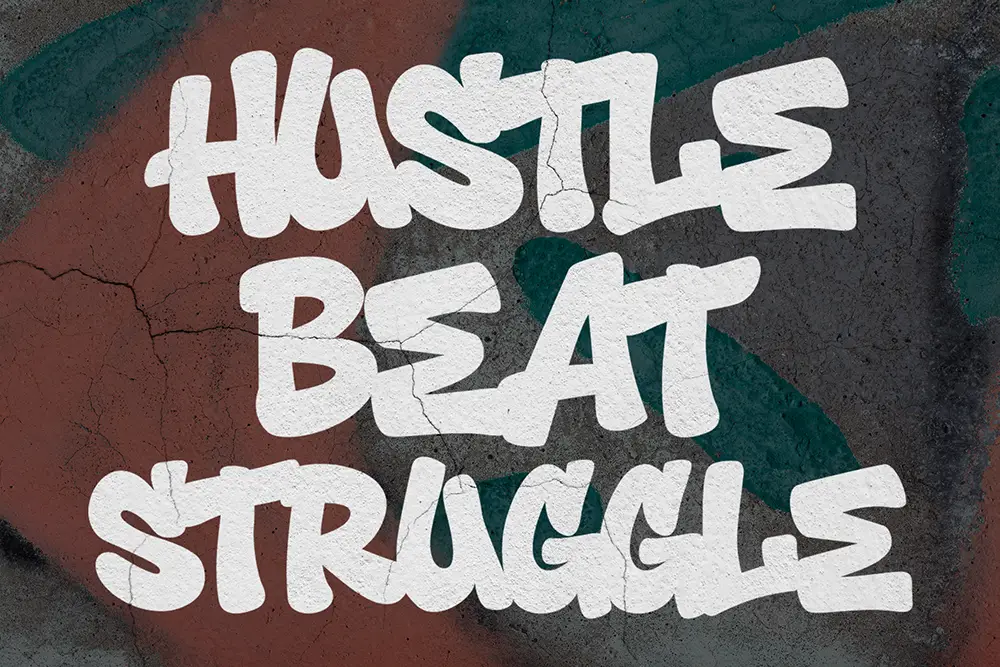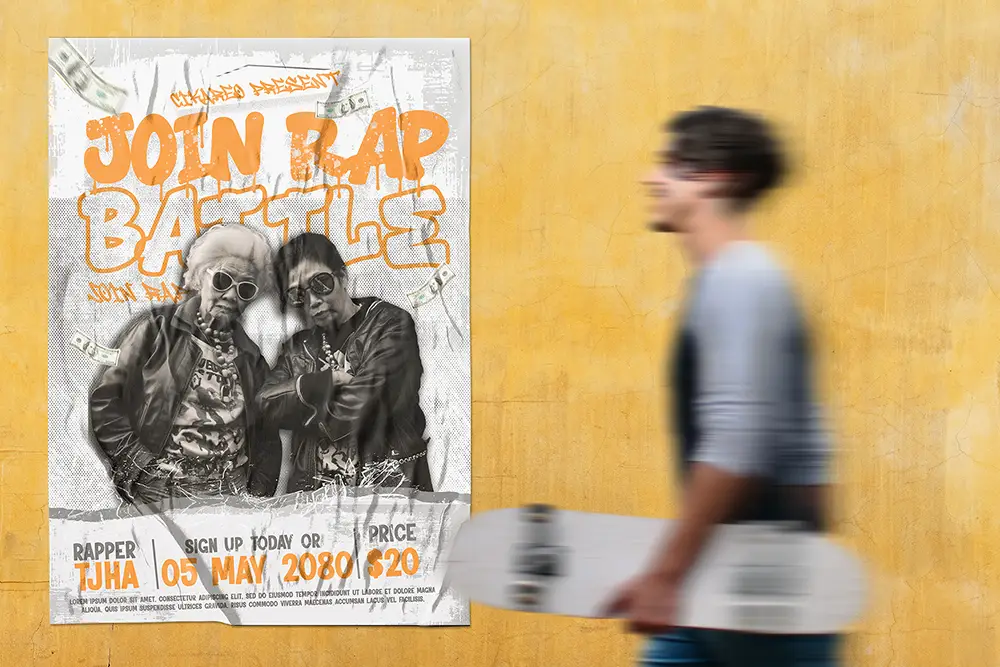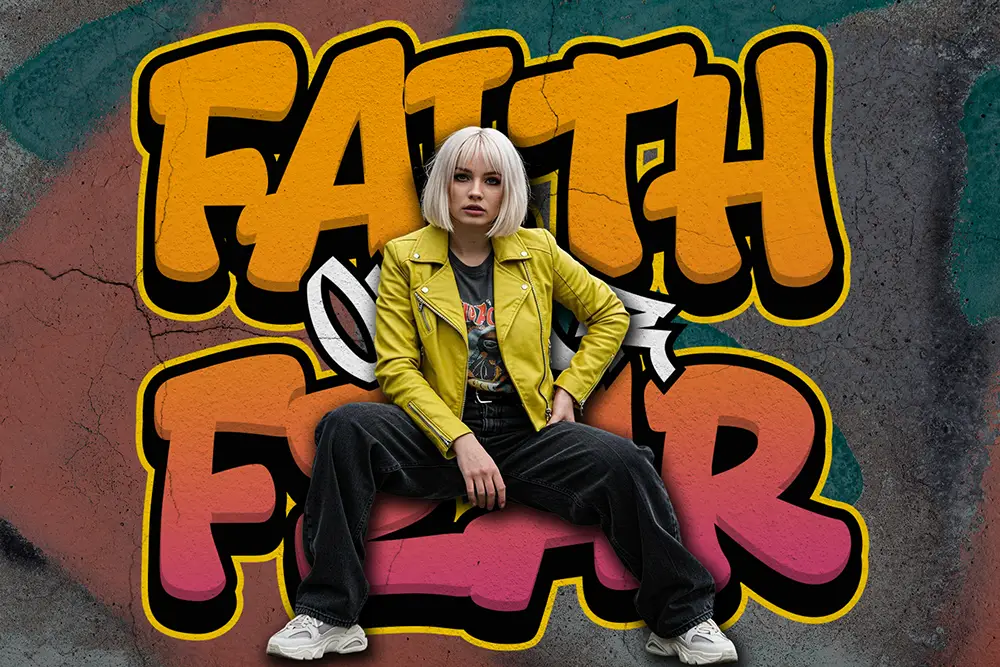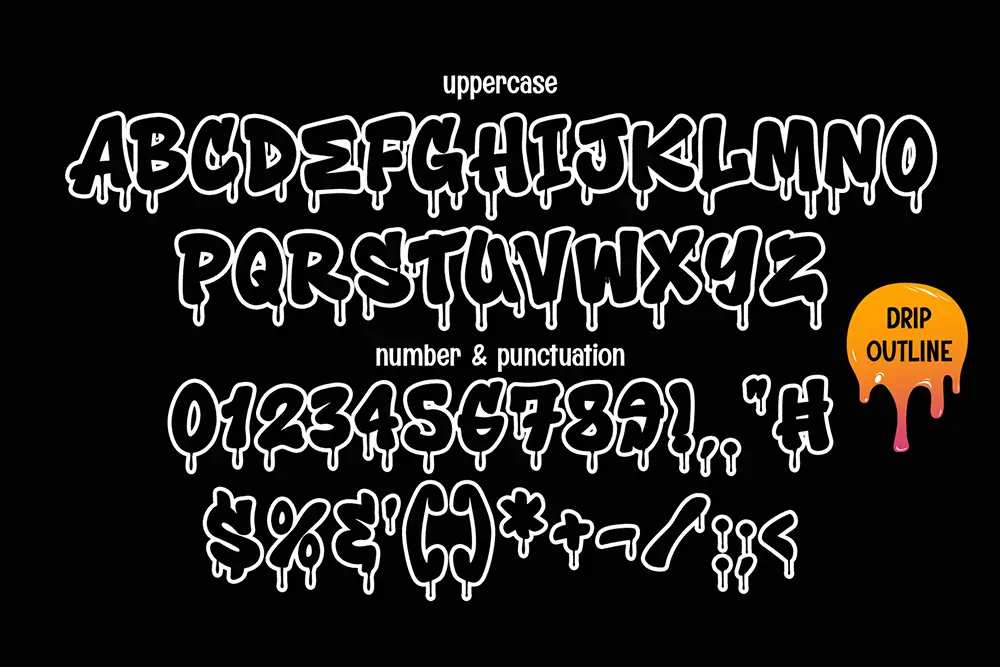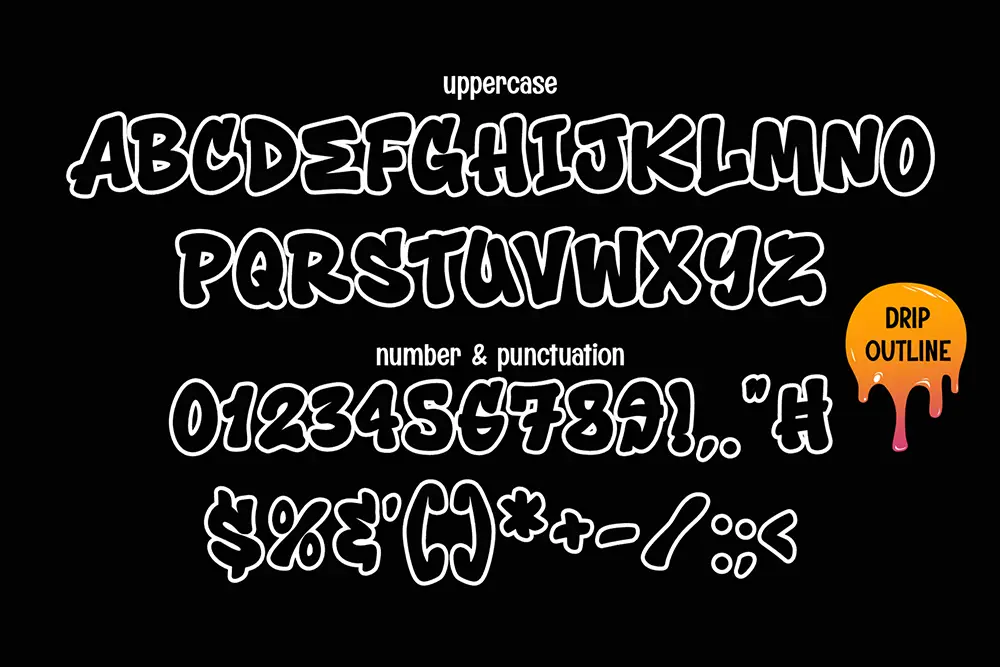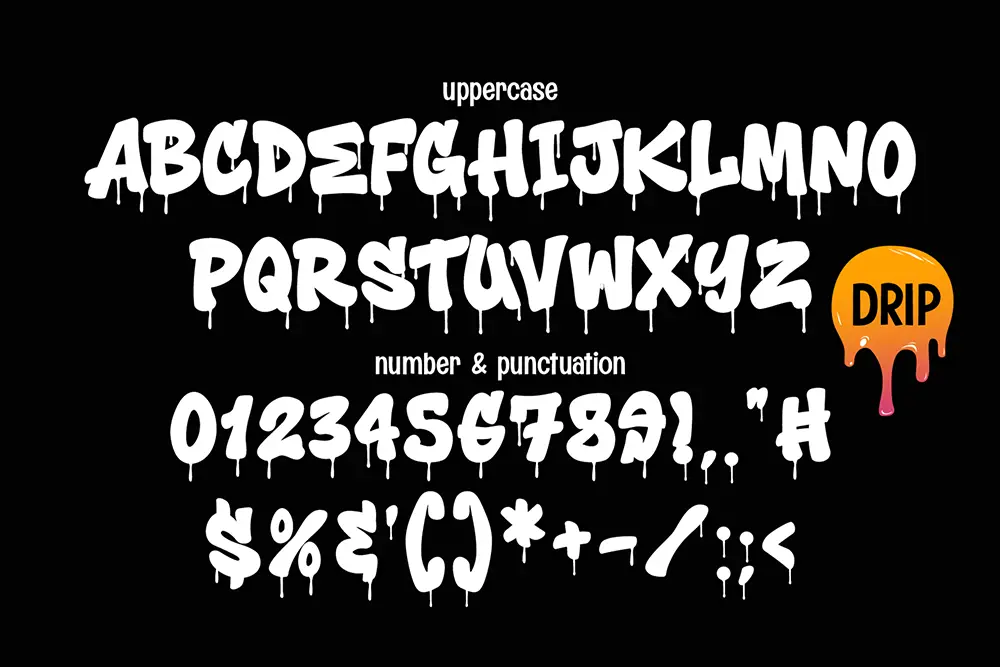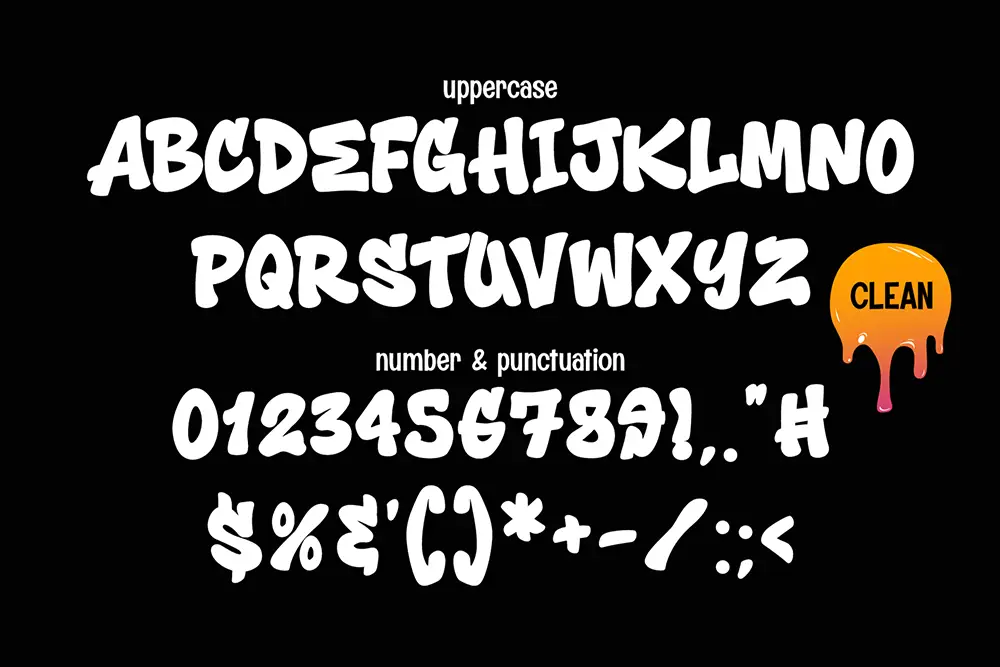
Toxic Rebel – Layered Drip Graffiti Font for Bold Urban Design
Graffiti-inspired typefaces have the power to transform any project with raw energy and authenticity. Toxic Rebel – Layered Drip Graffiti Font captures the true essence of street art with its dripping layers, bold outlines, and expressive strokes. Built for designers who want their work to feel rebellious and powerful, this layered drip graffiti font is perfect for posters, branding, music covers, digital art, and event promotions.
Whether you’re designing an urban logo, a bold social media campaign, or underground artwork, Toxic Rebel ensures your typography looks fearless and unforgettable.
Layered Drip Graffiti Font with Attitude
Unlike ordinary display fonts, Toxic Rebel is a layered drip graffiti font designed to let you customize depth and texture. With multiple styles—regular, drip, outline, and outline drip—you can mix and match for endless creative possibilities.
This versatility allows designers to create artwork that looks hand-painted on a city wall, complete with bold outlines and natural drip effects. Toxic Rebel thrives in large, eye-catching formats like posters, murals, and festival graphics.
Key Features of Toxic Rebel – Layered Drip Graffiti Font
Designers want fonts that are as practical as they are stylish. Here’s what you get with Toxic Rebel – Layered Drip Graffiti Font:
• Uppercase & Lowercase: Complete set of letters for full flexibility.
• Multilingual Support: Extended Latin coverage for international design.
• Layered Options: Regular, drip, outline, and outline drip for maximum creativity.
• Graffiti Authenticity: Natural spray-paint inspired look with bold drips.
• Perfect for Display Use: Headlines, posters, logos, and streetwear-style branding.
Why Designers Love Toxic Rebel
Toxic Rebel is more than just a graffiti font—it’s a creative weapon. Here’s why designers around the world love this layered drip graffiti font:
• Raw Street Energy: Perfect for projects that need rebellious, fearless design.
• Layer Flexibility: Multiple versions give freedom to create custom graffiti effects.
• Professional Quality: Carefully crafted letterforms with authentic drips and bold outlines.
• Urban Branding: Ideal for music, festivals, skate culture, and bold advertising.
Toxic Rebel for Posters and Logos
Posters and logos demand instant attention. Toxic Rebel’s layered drip graffiti font style ensures your work will never go unnoticed. Use the outline drip version for striking titles or combine layers for a unique graffiti effect that looks both rebellious and artistic.
Perfect for music promotions, street art campaigns, and urban branding, Toxic Rebel brings authenticity to your creative projects.
Toxic Rebel in Urban Digital Media
Digital platforms thrive on visuals that look bold and authentic. This layered drip graffiti font is ideal for YouTube thumbnails, TikTok edits, Instagram graphics, and event promotions. Its drip layers replicate real street art while maintaining readability, making it perfect for bold urban marketing campaigns.
• Combine the outline drip style with a bold serif or sans serif to create contrast in branding projects.
These pairings give your designs more versatility, balancing rebellious graffiti energy with structured typography.
Why Toxic Rebel is the Graffiti Font You Need
Typography is more than letters—it’s a voice. Toxic Rebel is that voice for rebellion, authenticity, and urban power. As a layered drip graffiti font, it offers multiple creative layers, bold drips, and raw energy that resonates with street art culture.
Whether you’re designing for events, music, or personal branding, Toxic Rebel provides the tools to create authentic graffiti-inspired visuals with professional quality.
Toxic Rebel – Layered Drip Graffiti Font is not just another typeface; it’s a symbol of fearless creativity. With four versions included, multilingual support, and authentic drip style, it’s built for designers who want to break the rules and stand out.